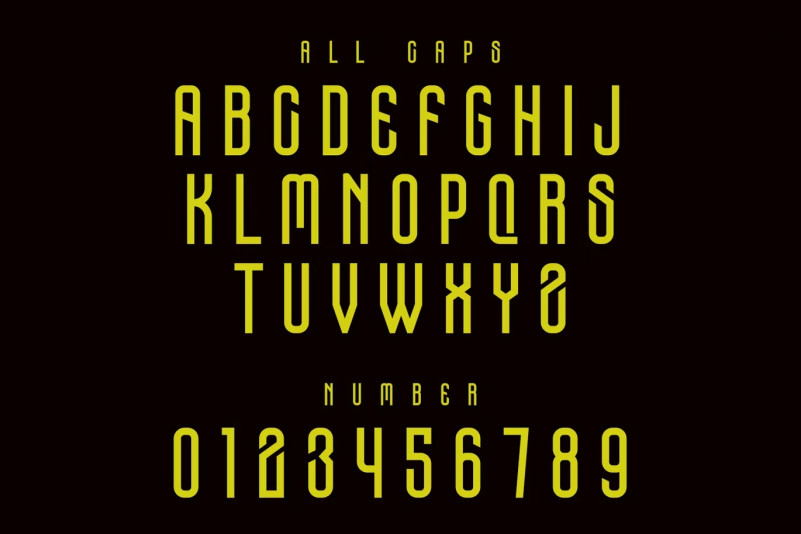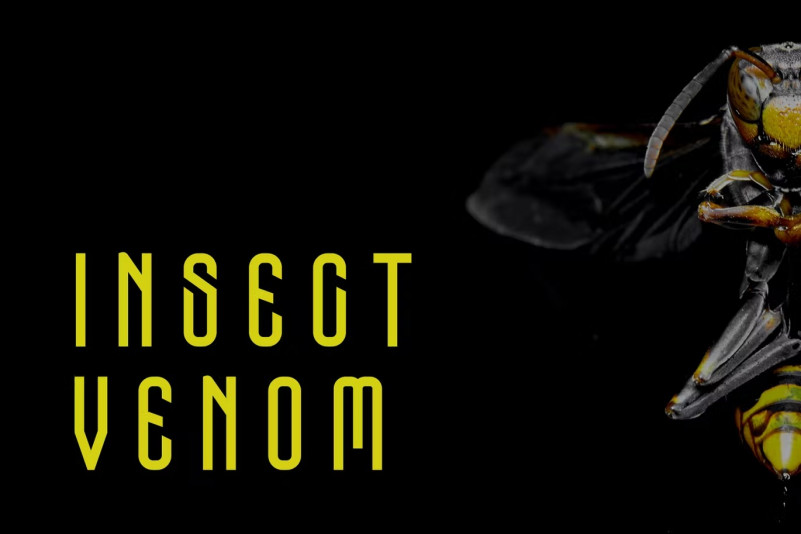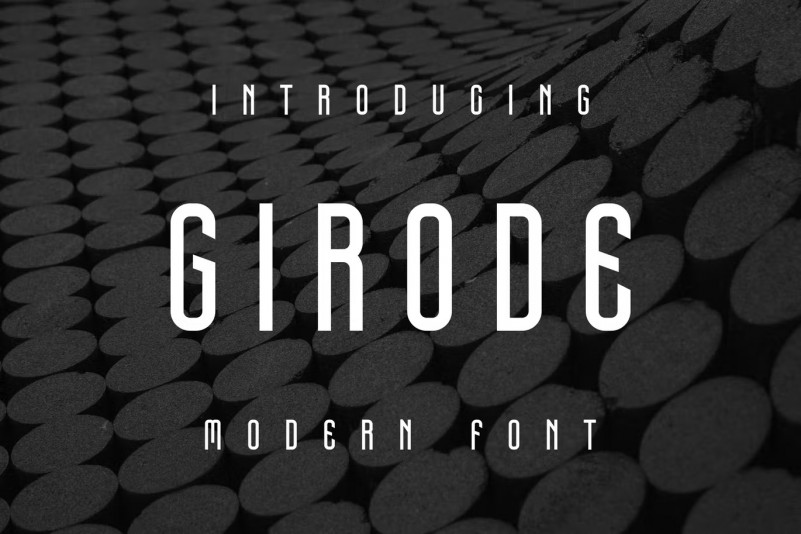
Girode Font
Girode Font Perfectly suited on print/screen. it’s perfect for Branding, name card, poster, logo, magazine, cover, banner, tshirt and headers, or even large-scale artwork.